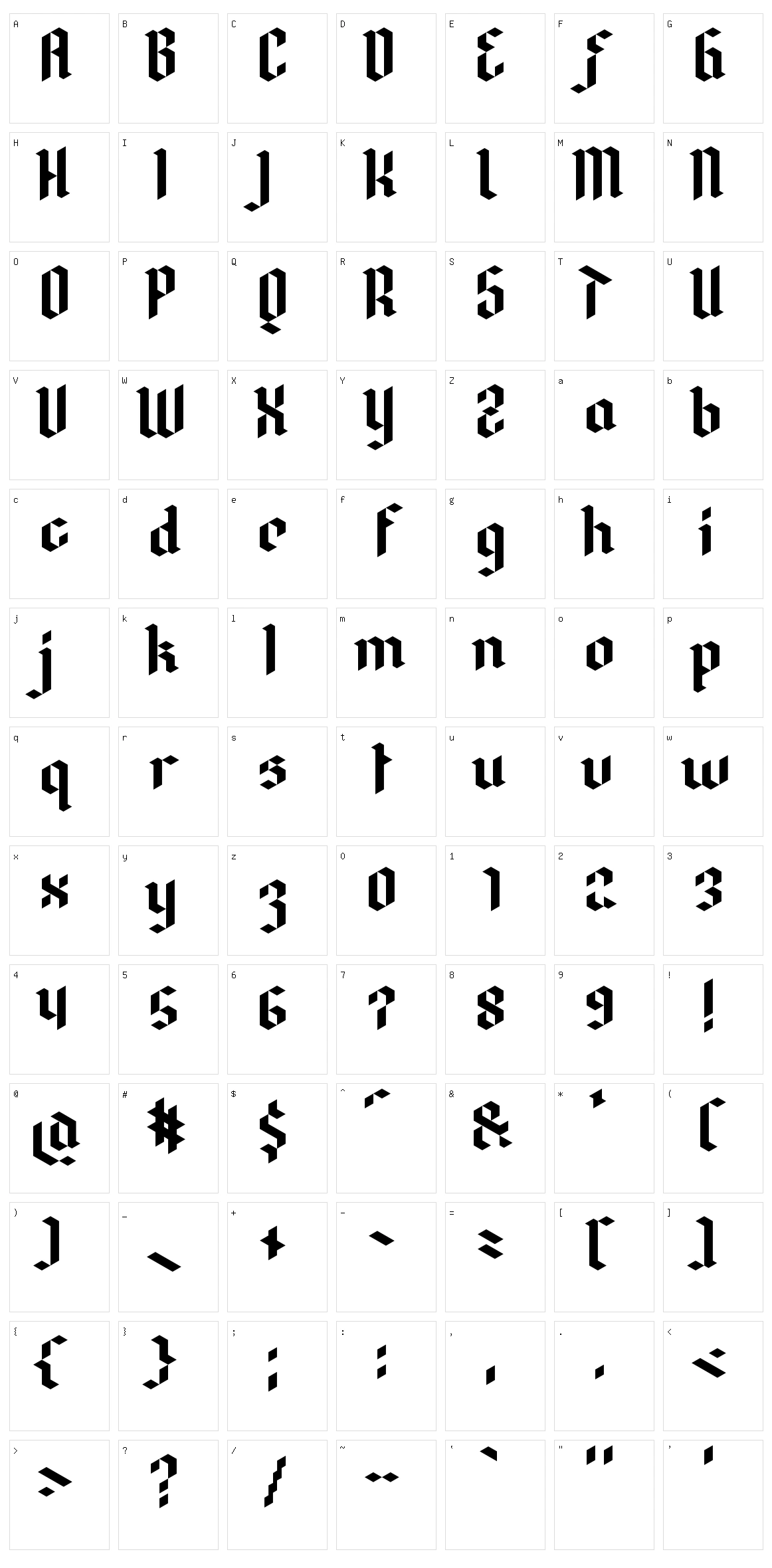
Drei Fraktur
Designed by: Jaycobs
DreiFraktur font was designed and created by JAYCOBS
Description :
While working on a retro game I made several gothic inspired typeface with a really small square grid. I really enjoyed the constraint of using a low resolution to make font with such style. I reused the same process with DreiFraktur, a geometric typeface with the particularity of being draw with a isometric grid. Each character is made a multiples triangles and respect a strict composition to look like a blackletter typeface and respect the path of a beveled brush.